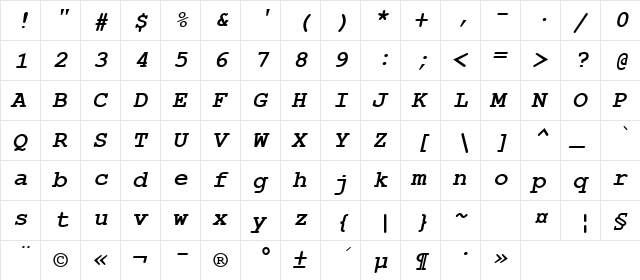
Courier New Cyr Bold Italic Font Preview
Design Context for Courier New Cyr Typeface
Courier New Cyr uses fixed-width spacing throughout, giving it the structured, systematic character associated with coding environments and technical documentation. Its italic angle brings a sense of urgency and motion to the letterforms. Its bold stroke weight gives it real presence on the page.
Well-suited to data-driven dashboards, coding tutorials, and any design that wants to reference the world of programming.
Pro Tip: Use Courier New Cyr with slightly increased line-height for extended reading — fixed-width spacing can feel dense in longer passages without extra breathing room.